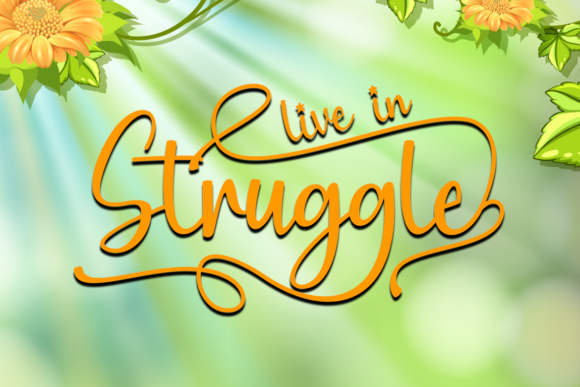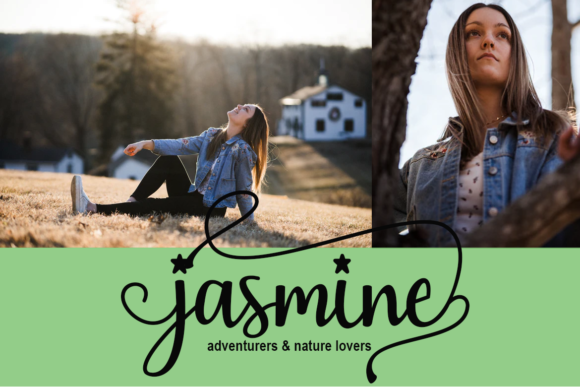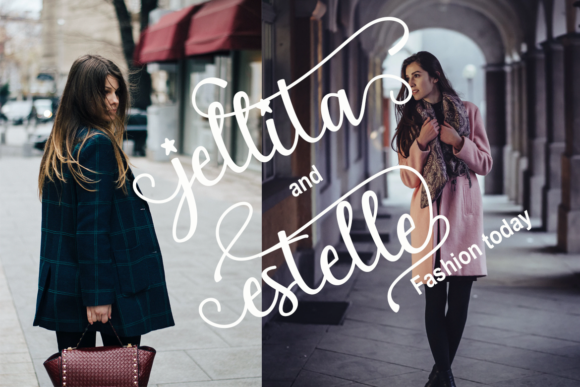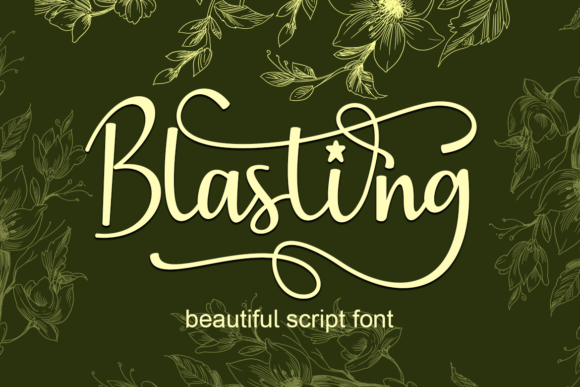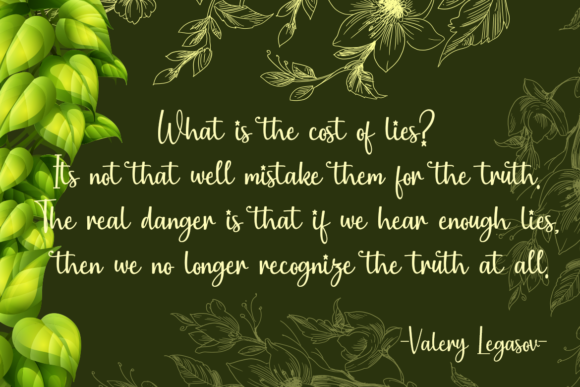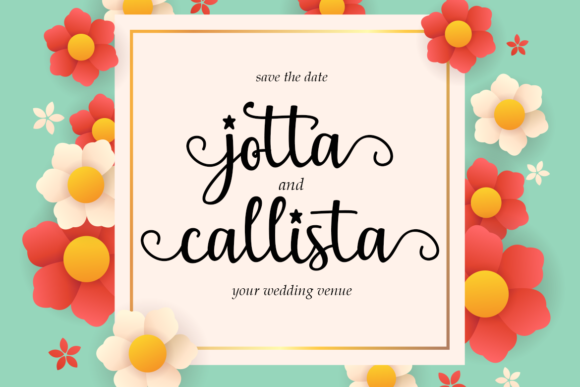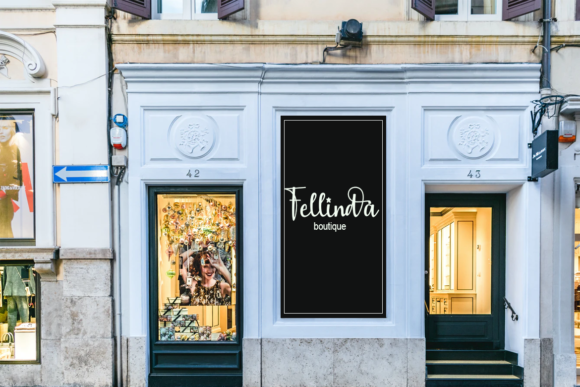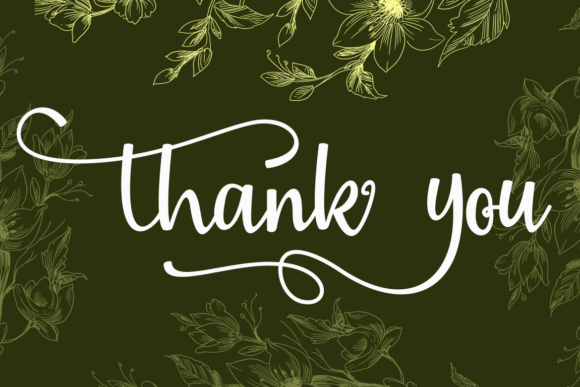
Blasting Font
About Blasting Font
Blasting is a captivating and brilliant handwritten font that adds a spark of uniqueness to any design. With its genuine and dazzling appearance, it’s the perfect choice for projects that demand a personalized and eye-catching style, such as wedding invitations, thank you cards, weddings, greeting cards, and logos.
The font’s genuine and authentic feel sets it apart from standard handwritten fonts, making it a standout choice for adding a touch of brilliance and charm to your designs. Its strokes are full of life and energy, creating a sense of dynamism and excitement.
Blasting’s dazzling and vibrant look makes it a versatile font that can adapt to various design themes and aesthetics. Its bold and expressive letterforms make it well-suited for both celebratory and joyful occasions, adding a sense of fun and enthusiasm to the designs.
With its PUA encoding, Blasting offers easy access to a wide range of glyphs and swashes, allowing for endless creative possibilities. You can effortlessly embellish your designs with beautiful alternates, ligatures, and decorative elements to make them truly unique and personalized.
The font’s readability and legibility make it a reliable choice for conveying your message effectively to your audience. Its carefully crafted design ensures that each letter flows smoothly, creating a harmonious visual experience that captures attention.
Blasting’s brilliance also shines in logo designs and branding materials. Its lively and dynamic appearance can amplify the identity of a business or brand, making it stand out in a crowded market.
Whether used as the main font or paired with other typefaces, Blasting complements and enhances various design choices, making it a valuable addition to any designer’s toolkit. Its adaptability and versatility ensure that it can breathe life into a wide range of creative projects.
In conclusion, Blasting is a genuine and dazzling handwritten font that infuses your designs with a burst of energy and excitement. Its versatility and sparkling appearance make it a perfect fit for a variety of projects, from celebratory events to personalized branding. Embrace the brilliance of Blasting and use it to add a touch of vivacity and charm to your designs.